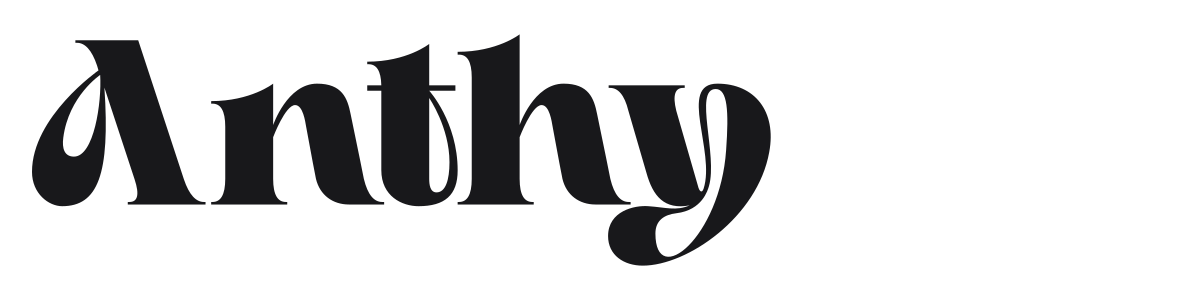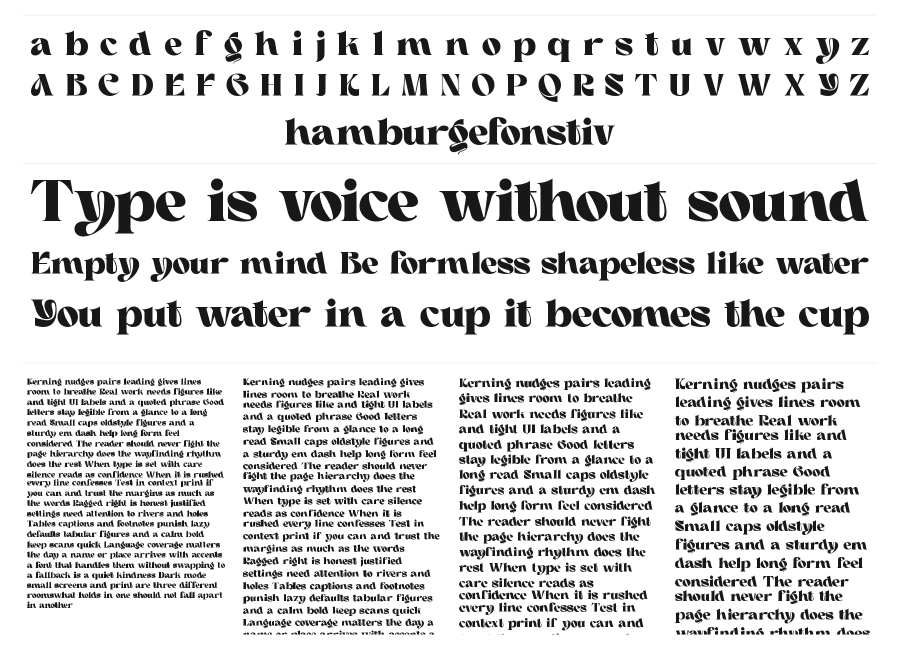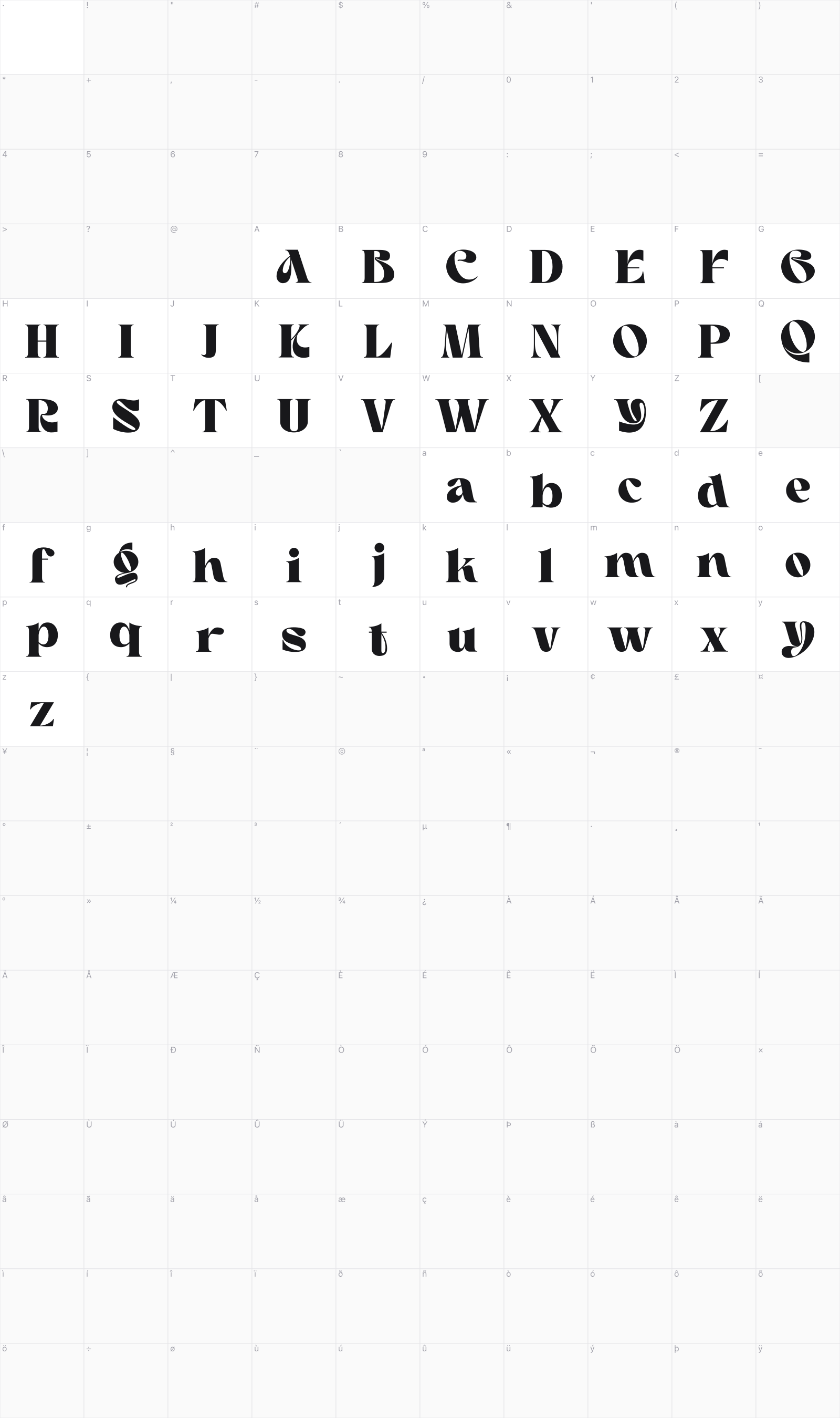
Anthy
Anthy is a bold Didone serif with extreme stroke contrast and sweeping calligraphic details that push it beyond a standard modern serif. The tension between ultra-heavy stems and near-invisible hairlines gives it a high-fashion, editorial edge. Swash accents on select characters add a distinctive handcrafted warmth to an otherwise architectural design.